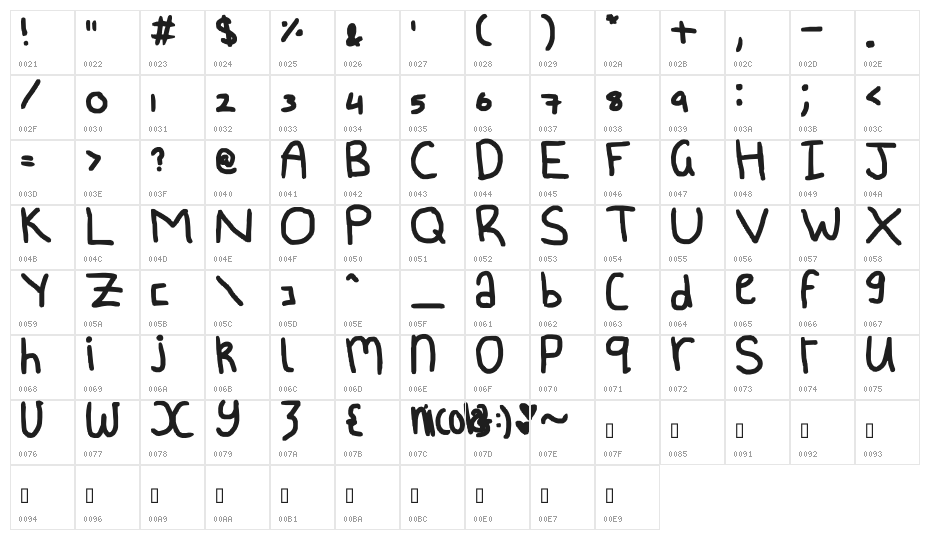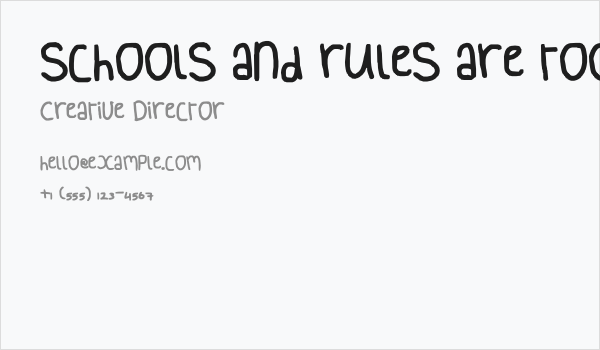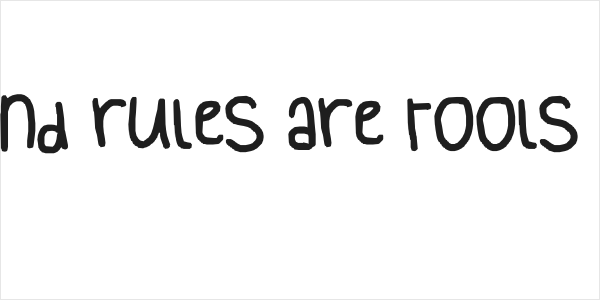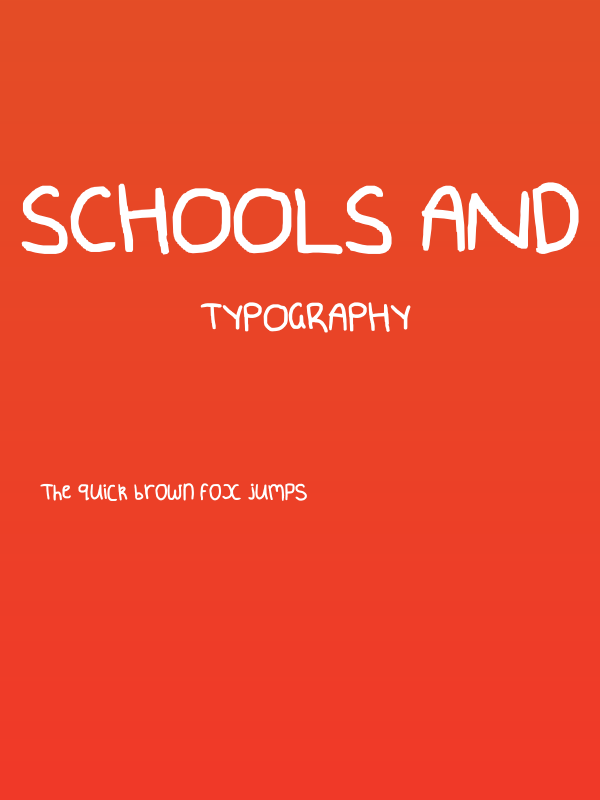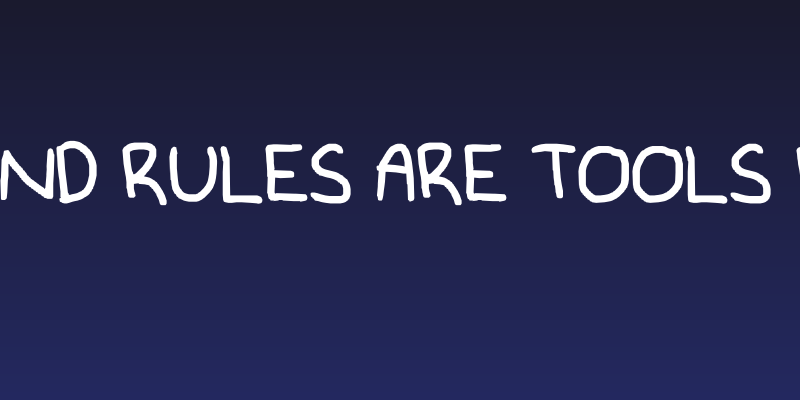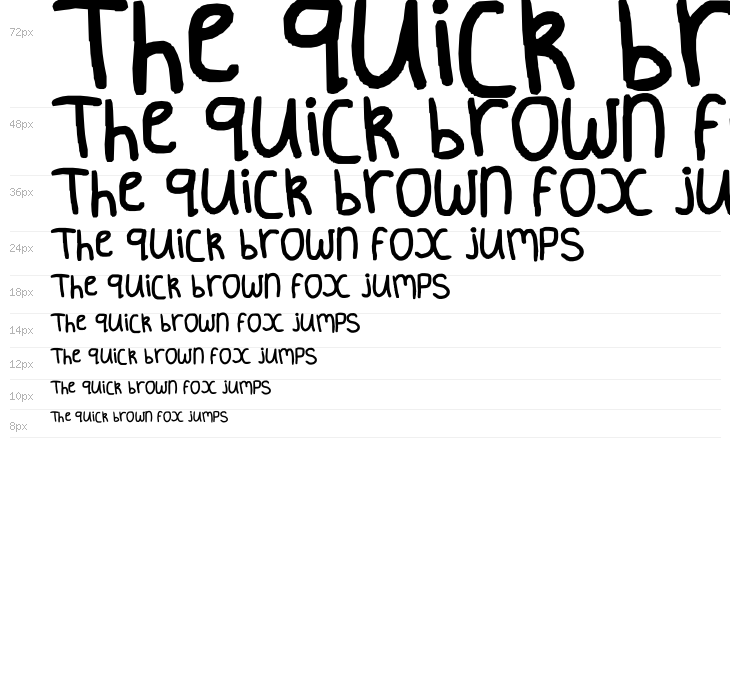
schools and rules are tools for fools Font
schools and rules are tools for fools Description
This font exhibits a playful and informal handwritten style, characterized by its uneven strokes and organic shapes. The letters are bold and slightly irregular, giving them a casual and approachable appearance. The uppercase and lowercase letters maintain a consistent style, with rounded edges and a slightly tilted orientation that adds to the whimsical feel. The numbers and special characters follow the same design principles, ensuring a cohesive look across all elements. This font's unique charm makes it suitable for projects that require a personal touch or a fun, relaxed vibe.
| Proposed Projects | Ideal for children's books, casual invitations, greeting cards, and playful branding. |